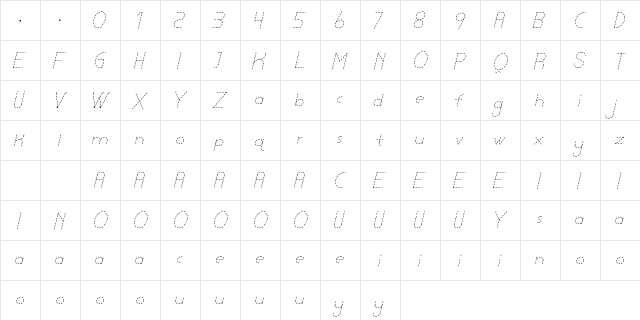
Lamborgini Thin Italic Dash Regular Font Preview
Design Context for Lamborgini Thin Italic Dash Typeface
Lamborgini Thin Italic Dash takes a measured approach to typography — its balanced proportions and neutral character make it a reliable workhorse for both digital and print work. The dynamic lean of this cut emphasises speed and emphasis in any layout. Its slender proportions lend an understated elegance to any composition.
Pro Tip: Try Lamborgini Thin Italic Dash for annotation and caption copy alongside an upright companion — the contrast in angle creates a dynamic but ordered typographic system.